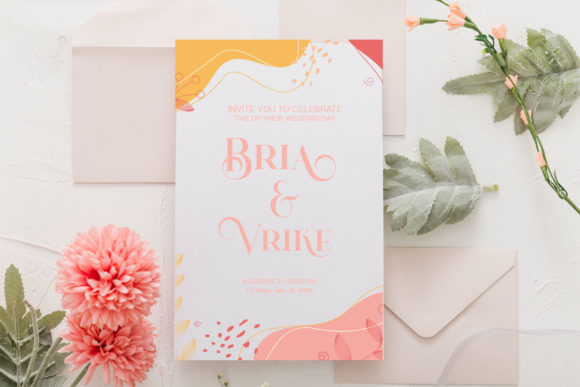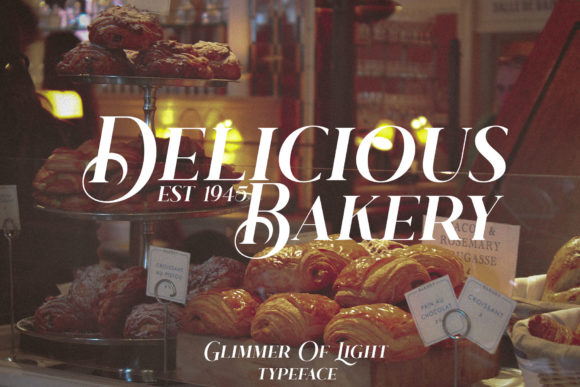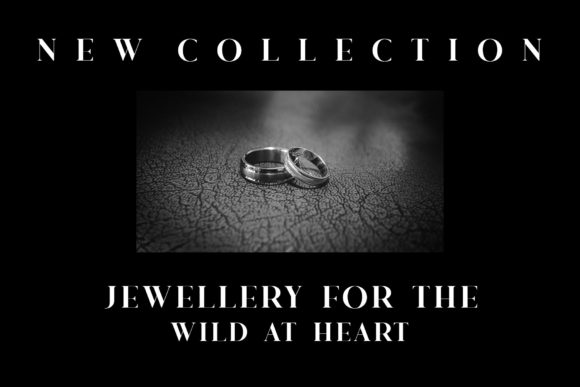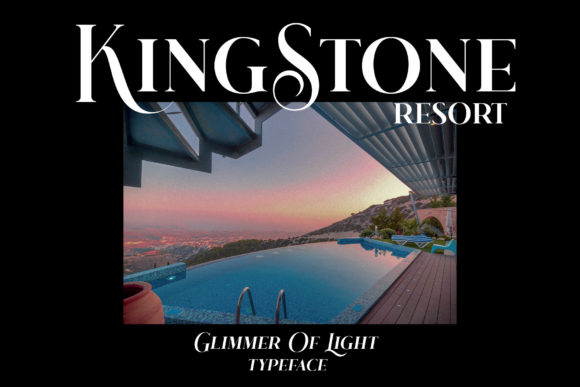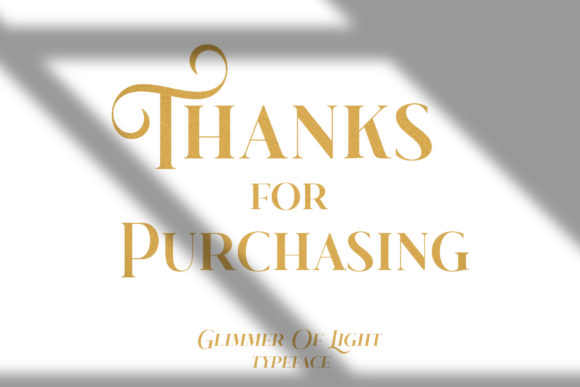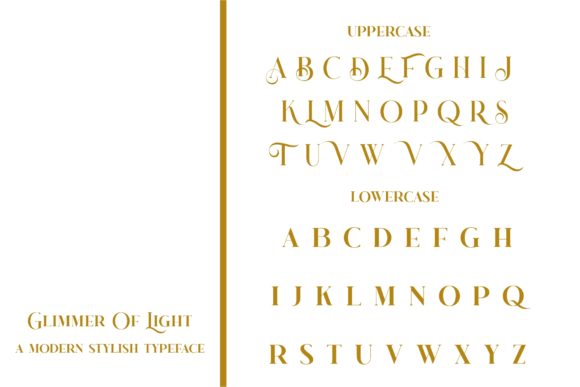
Glimmer of Light Font: Elevate Your Designs with Elegance and Boldness
Are you on the hunt for a font that exudes elegance, sophistication, and a touch of boldness? Look no further than the Glimmer of Light Font. This stunning serif font is designed to capture the hearts of designers and crafters alike with its incredibly versatile style, making it perfect for creating spectacular designs that leave a lasting impression.
The Essence of Glimmer of Light Font
Glimmer of Light is an elegant and bold serif font that boasts a unique charm, setting it apart from other fonts in its category. Its classic serif lines and contemporary flair make it an excellent choice for a wide range of design projects, from luxury branding and high-end magazines to elegant wedding invitations and bespoke crafts.
Key Features of Glimmer of Light Font
- Elegant and Bold: Glimmer of Light strikes the perfect balance between elegance and boldness, making it suitable for designs that require a touch of sophistication and prominence.
- Versatile Style: The font’s versatility is one of its standout features. It can be used in various contexts, from digital platforms to print materials, without losing its charm.
- Serif Excellence: The well-defined serifs of Glimmer of Light add a layer of refinement to any design, making it ideal for projects where classic typography is desired.
- Easy to Read: Despite its elegant and bold appearance, Glimmer of Light maintains excellent readability, ensuring that your message is conveyed clearly and effectively.
Applications of Glimmer of Light Font
The versatility of Glimmer of Light Font makes it suitable for a myriad of applications. Here are some of the most popular uses:
- Branding and Logotypes: Create a lasting impression with your brand’s identity by incorporating Glimmer of Light into your logo design.
- Advertising and Marketing Materials: Stand out in the crowded marketplace with elegant and bold advertising materials, including brochures, flyers, and posters.
- Packaging Design: Elevate your product packaging with a sophisticated and eye-catching font that reflects your brand’s personality.
- Digital Media: Enhance your digital presence with Glimmer of Light, perfect for website headings, social media graphics, and email newsletters.
- Crafting and DIY Projects: Add a professional touch to your handmade crafts, such as custom jewelry, candles, and clothing, with beautifully designed labels and packaging.
Tips for Using Glimmer of Light Font
To maximize the impact of Glimmer of Light Font in your designs, consider the following tips:
- Pair with Complementary Fonts: Combine Glimmer of Light with simpler sans-serif fonts for body text to create a harmonious contrast.
- Experiment with Colors: While the font itself is bold and elegant, playing with different colors can further enhance its appearance and suitability for various themes.
- Adjust Letter Spacing: For headings, slightly adjusting the letter spacing can make the text even more striking and attention-grabbing.
Glimmer of Light Font is a game-changer for designers and crafters looking to infuse their projects with elegance, boldness, and versatility. Its classic yet contemporary design makes it a valuable addition to any creative arsenal. Whether you’re working on a luxury brand campaign, a personal crafting project, or anything in between, Glimmer of Light is sure to illuminate your designs and make them truly spectacular.
So, fall in love with the charm of Glimmer of Light and let it guide your creative journey towards producing stunning, memorable designs that capture hearts and imaginations.